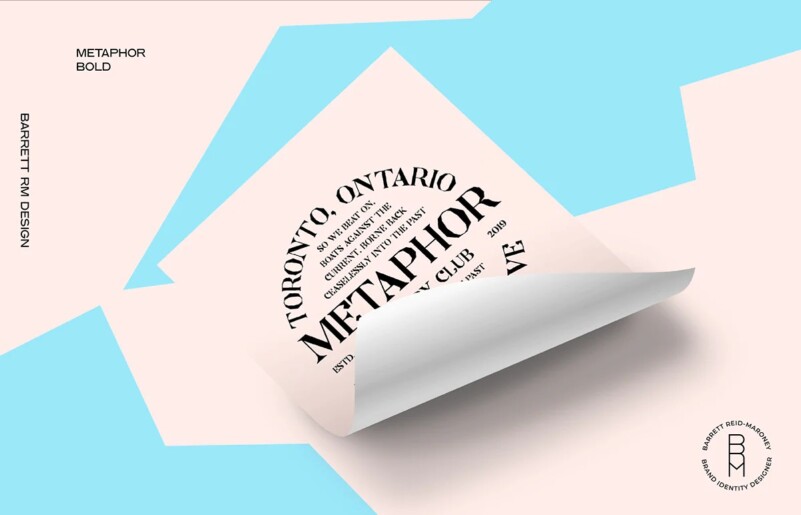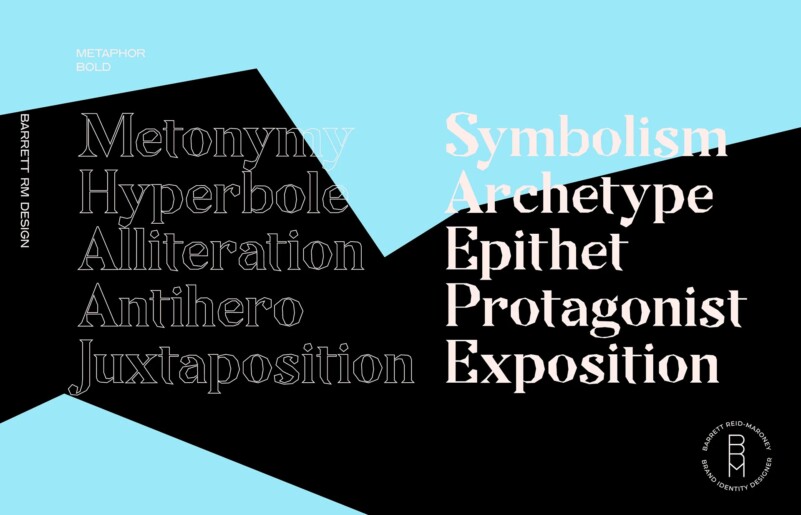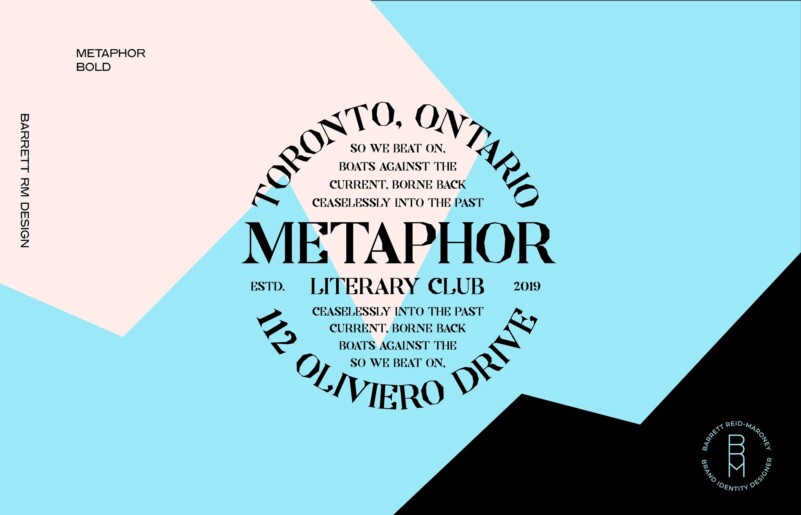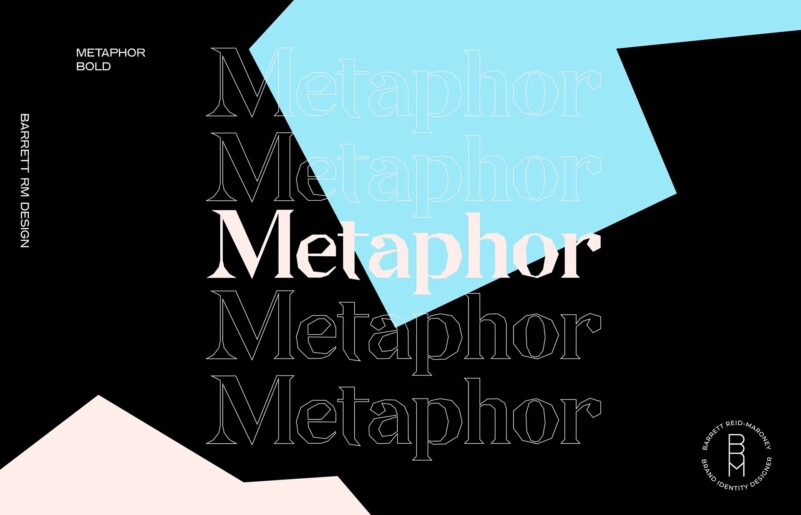
Metaphor Font is a fragmented, modern font. Created with clarity and boldness in mind, this font offers a variety of bold and italic styles, providing flexibility in its use. Whether used for titles, headings, or poster designs, the Metaphor Font provides the clarity and appeal needed to hold an audience’s attention.